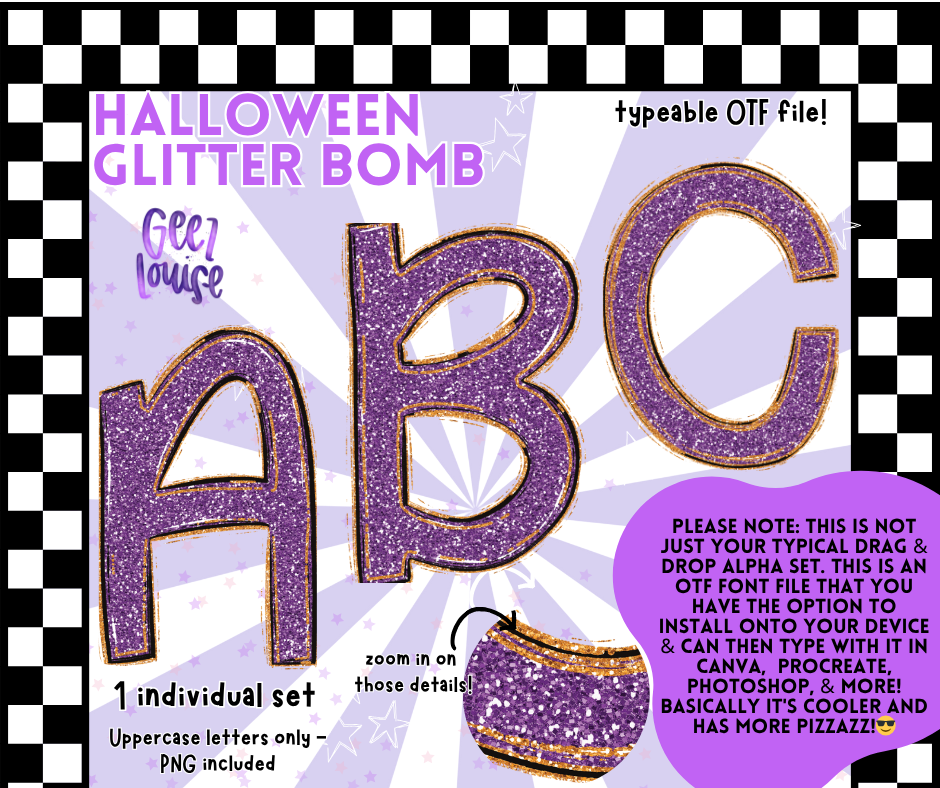
Halloween Glitter Bomb OTF Font – Purple Glitter Alpha with PNG Files
Bring the glitter, bring the BOO! The Halloween Glitter Bomb OTF font is a purple sparkly dream just in time for spooky season. This typeable font includes uppercase letters in OTF format plus individual PNGs for drag-and-drop ease. Whether you're creating Halloween invitations, sublimation projects, digital graphics, or fun seasonal merch, this font adds that perfect glitzy pop.